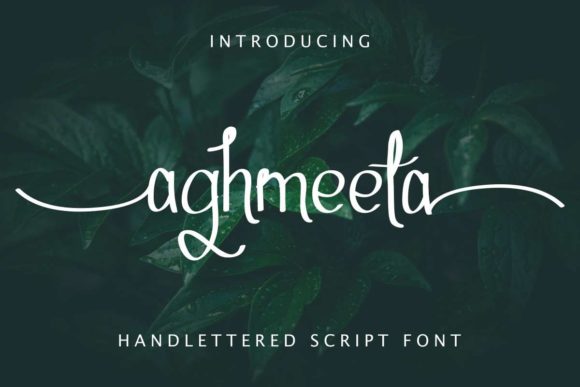
Unleash your playful side and embrace the whimsical charm of Aghmeeta, an enchanting script font designed to ignite your creativity and make your words dance with delight.
Aghmeeta's playful curves and delicate swashes evoke a sense of nostalgia, reminiscent of childhood scribbles and summer camp adventures. It's a font that speaks to the free-spirited and the young at heart, inviting you to let your imagination soar and add a touch of whimsy to any project.
Perfect for personal branding, social media posts, invitations, greeting cards, and any design that calls for a personal touch, Aghmeeta transforms your words into charming works of art.
With its adorable and authentic character, Aghmeeta adds a touch of warmth and playfulness to any design. Whether you're creating a whimsical logo, a heartwarming invitation, or simply adding a touch of cheer to your social media posts, this script font will leave a lasting impression.